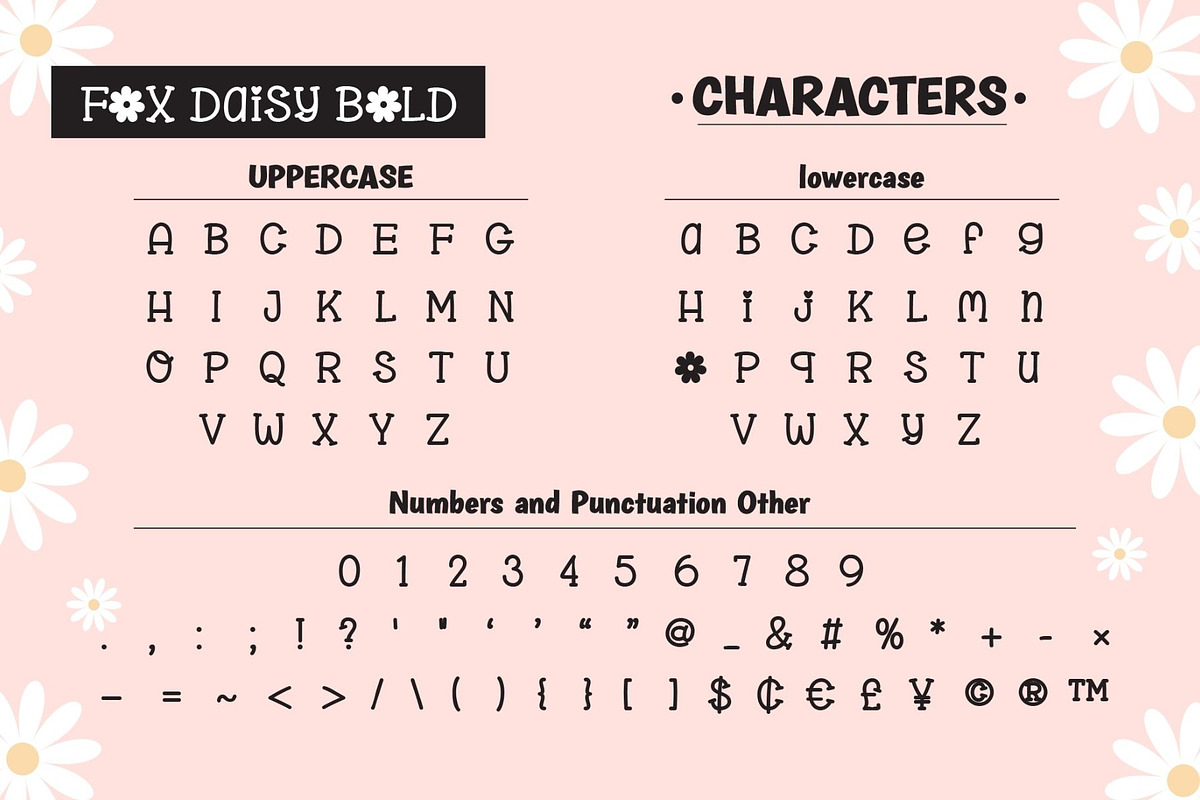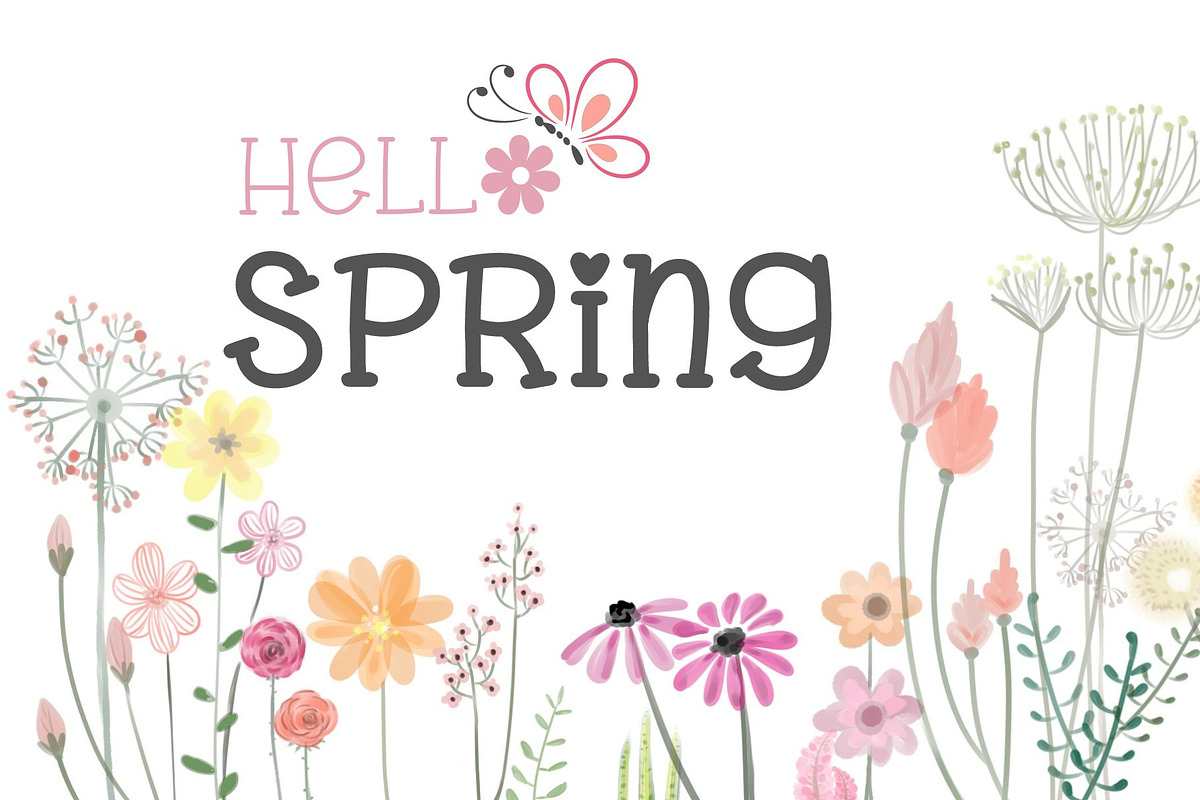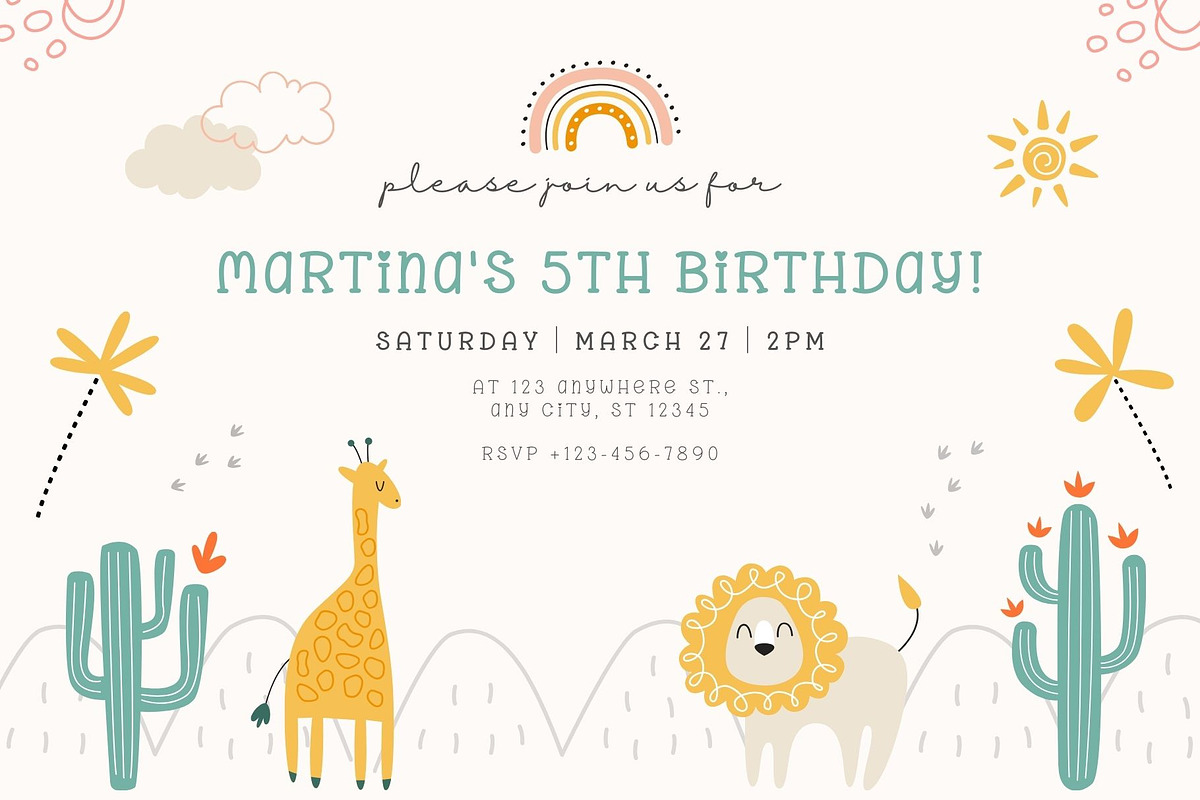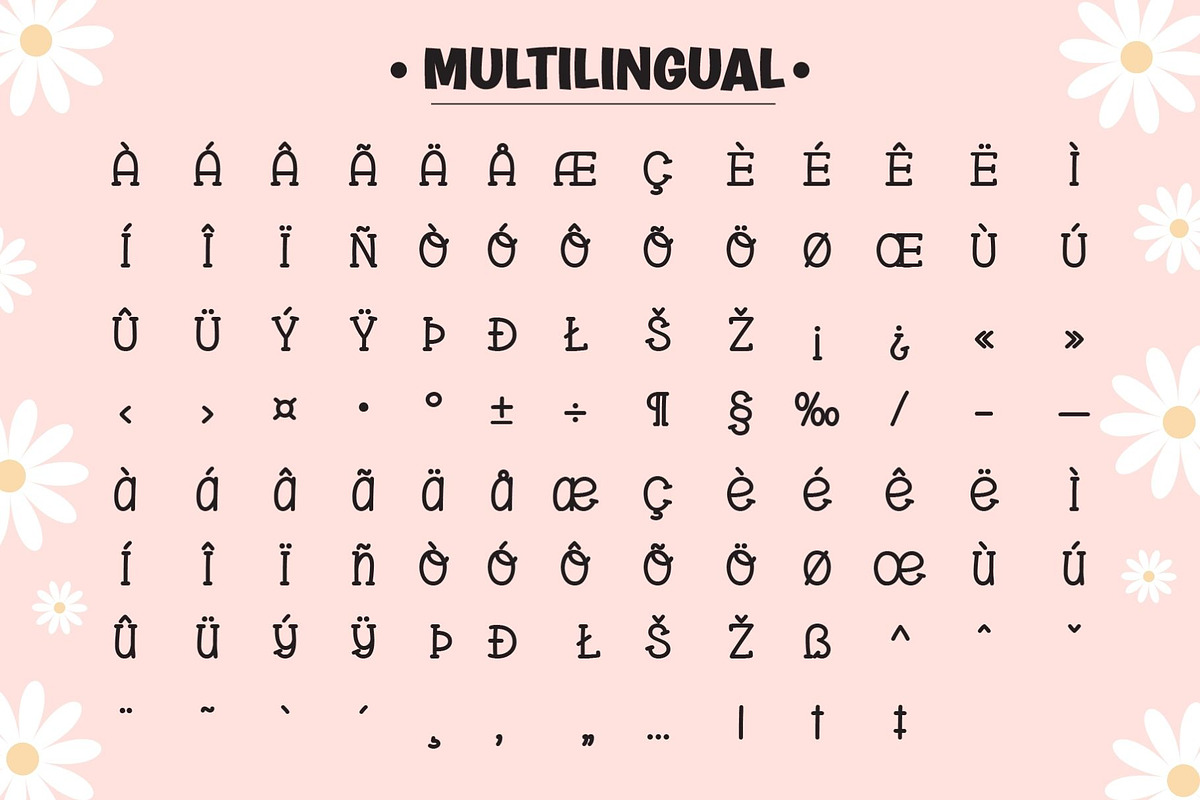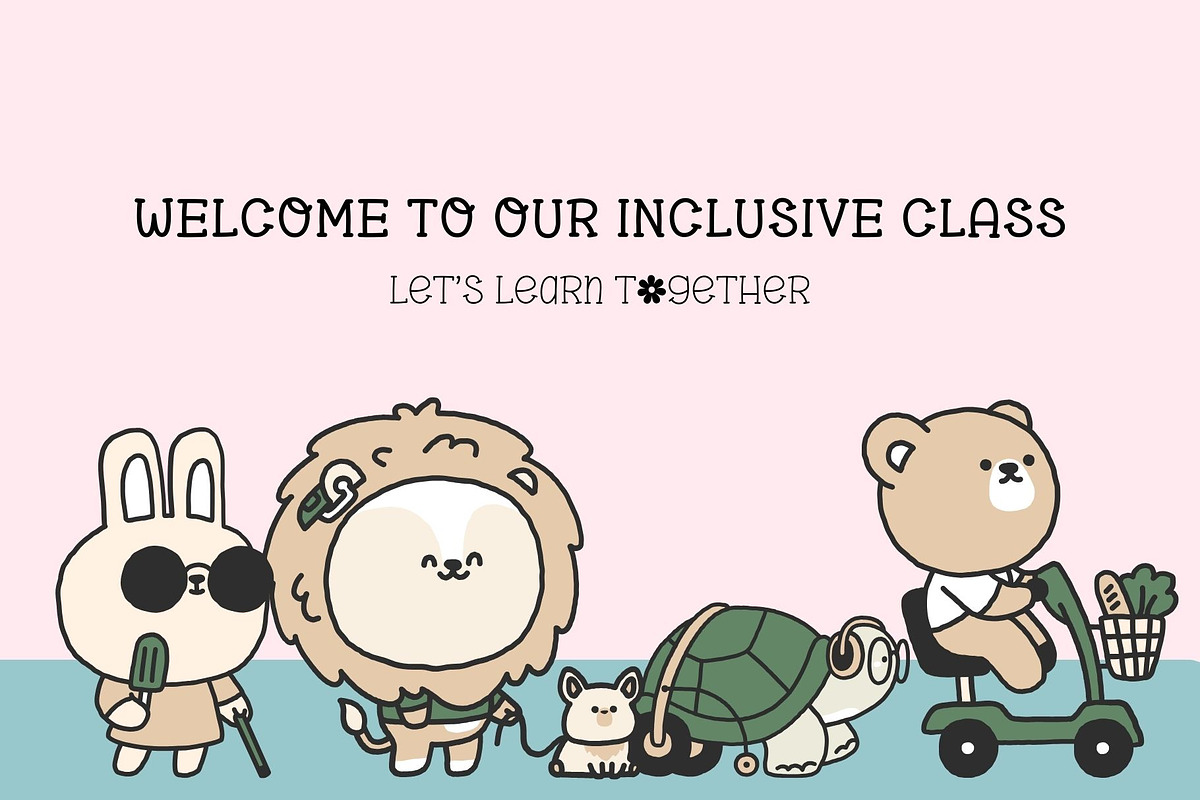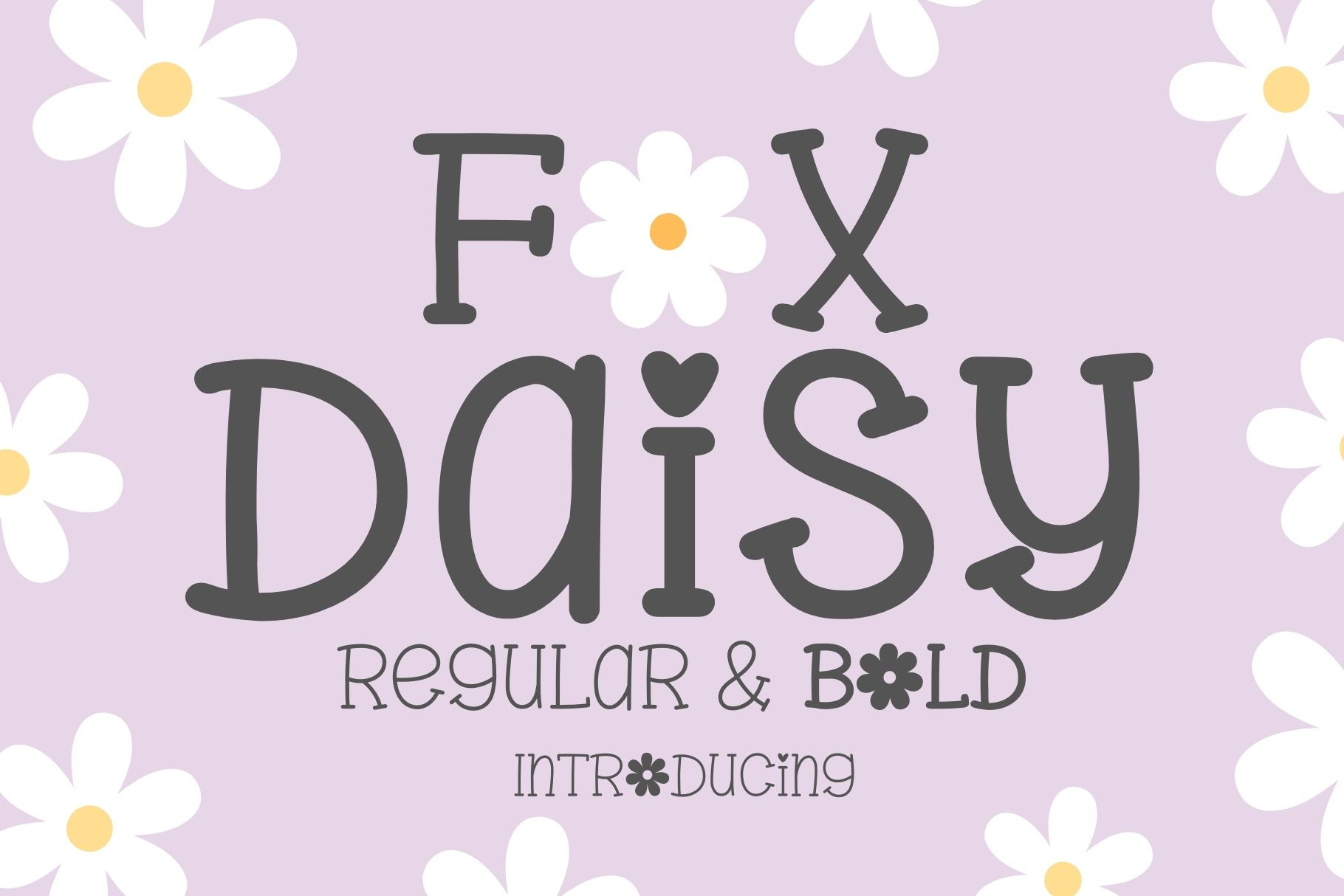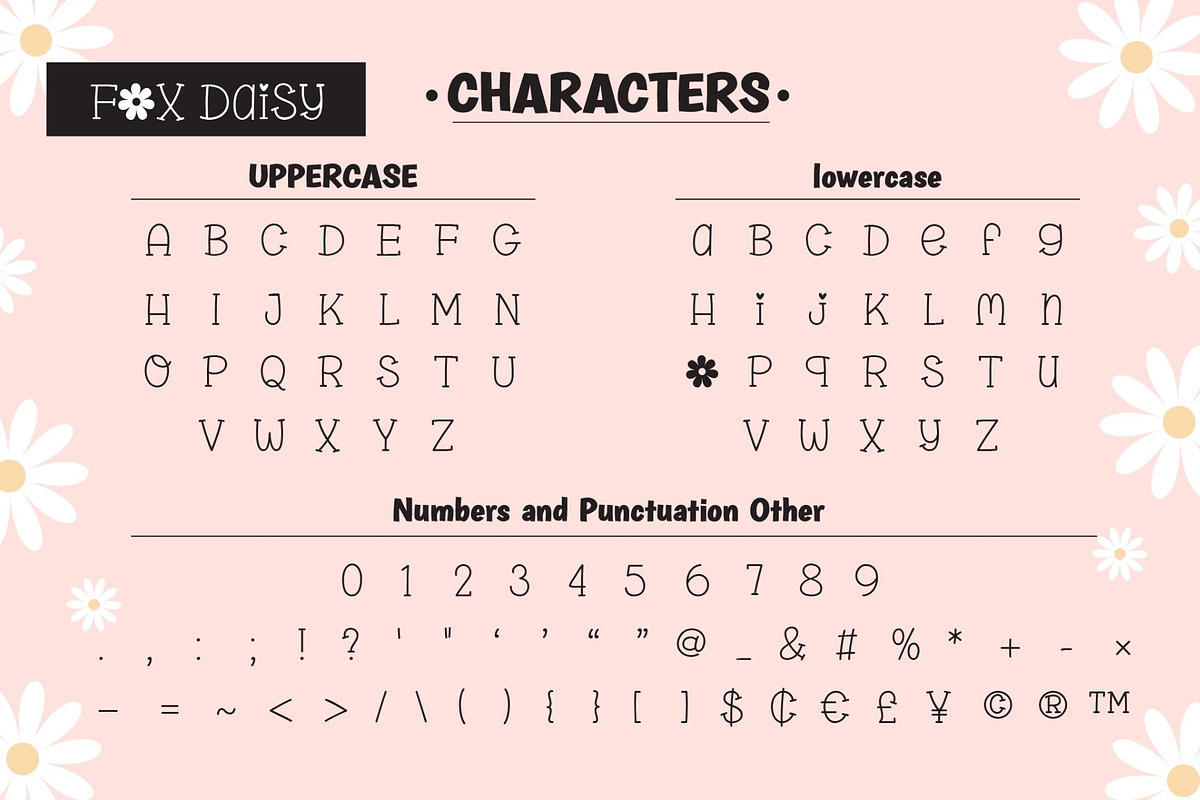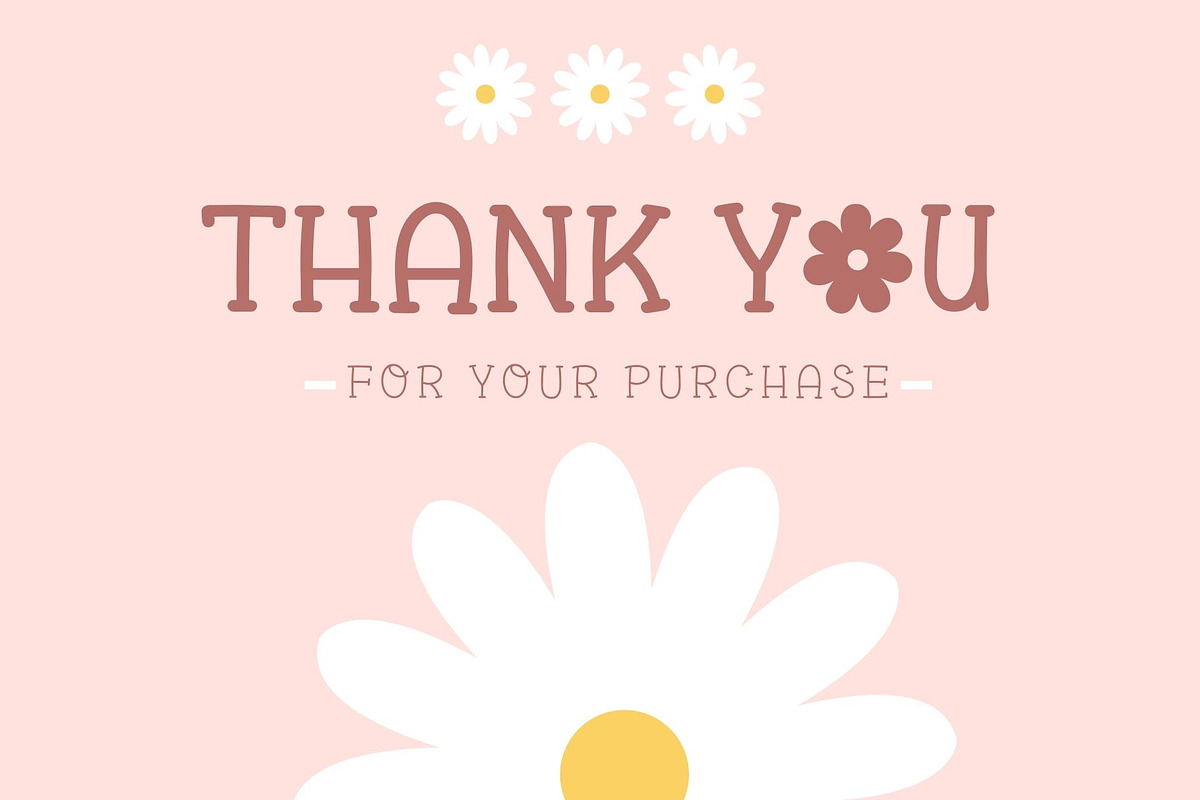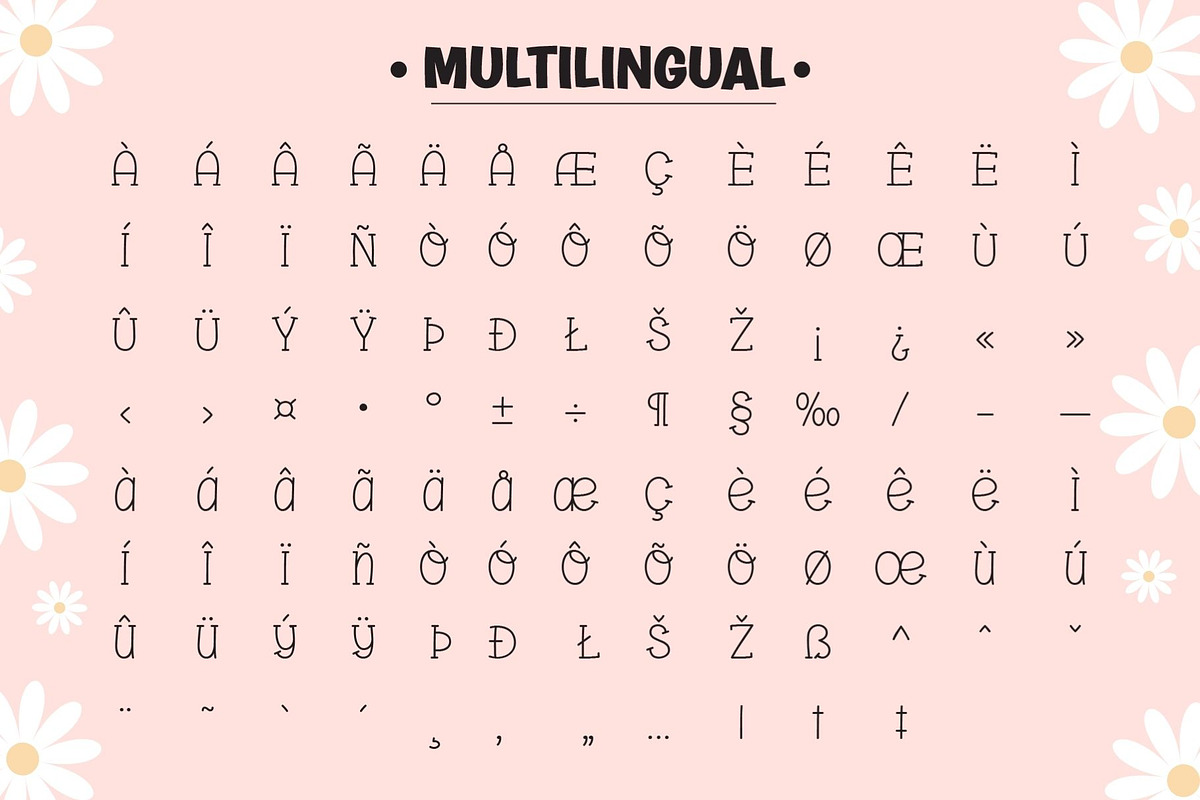
Fox Daisy Font
Fox Daisy Font is a charming handwritten Slab Serif Fonts typeface with both thick and thin that exude cuteness and simplicity. With its clean lines and easy-to-read design, this font is the perfect choice for a wide range of creative projects. Whether you’re creating inspirational quotes, captivating headings, engaging blogs, striking logos, or inviting invitations, Fox Daisy Font adds a delightful touch to any project.